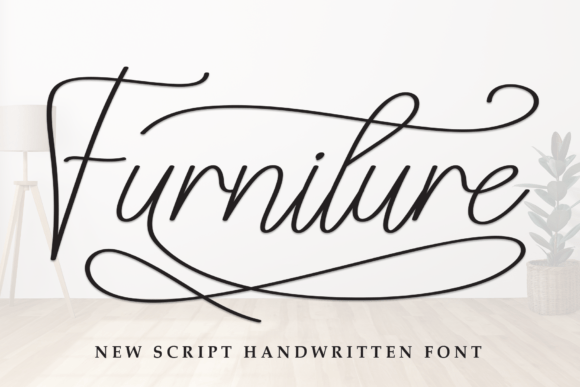
Unleashing Your Creativity with Furniture Font
Have you ever been stuck in a design rut, struggling to find the perfect font to convey your message? I know I have. It’s like trying to find the perfect key to unlock a creative puzzle. But what if I told you that there’s a solution that can elevate your designs and take them to the next level?
Enter Furniture Font, a special creative product designed to give you an extraordinary experience. This latest style font is perfect for a variety of projects, from wall displays and wedding invitations to social media post logos and product packaging. With Furniture Font, you’ll have the freedom to express yourself in a unique and stylish way that sets your designs apart from the rest.
Furniture Font Key Features
- Unique Characteristics: The font features a unique, hand-drawn aesthetic with intricate details and subtle texture, giving it a distinctive and premium feel.
- Language Support: Furniture Font supports a wide range of languages, including Latin, Cyrillic, and Greek, making it an excellent choice for international design projects.
- Font Styles: The font includes a range of styles, including regular, bold, italic, and bold italic, allowing designers to add depth and variety to their designs.
Furniture Font Review
Overall, I think Furniture Font is a decent addition to any designer’s toolkit. It has some great features that make it a valuable resource for creating custom furniture designs. ✨
- High-quality vector graphics: Furniture Font’s vector graphics are crisp and clean, making them perfect for printing or digital use.
- Extensive character set: The font includes a wide range of characters, from basic letters to decorative elements like furniture silhouettes.
- Easy to use: The font is relatively simple to use, even for designers who are new to font creation.
However, there are some limitations to consider. ⚠️
- Limited customization options: While the font is easy to use, there are limited options for customization, which may limit its use in certain design projects.
- Not ideal for text-heavy designs: Due to the decorative nature of the font, it may not be the best choice for designs that require a lot of text.
Overall, I think Furniture Font is a solid choice for designers who need to create custom furniture designs. While it may not be perfect, it’s a valuable resource that can help take designs to the next level.
Use Furniture Font to add a touch of elegance and sophistication to your designs.
It’s particularly well-suited for furniture-related projects, such as designing catalogs or websites for furniture stores.
Experiment with different font sizes and colors to create a visually appealing effect.